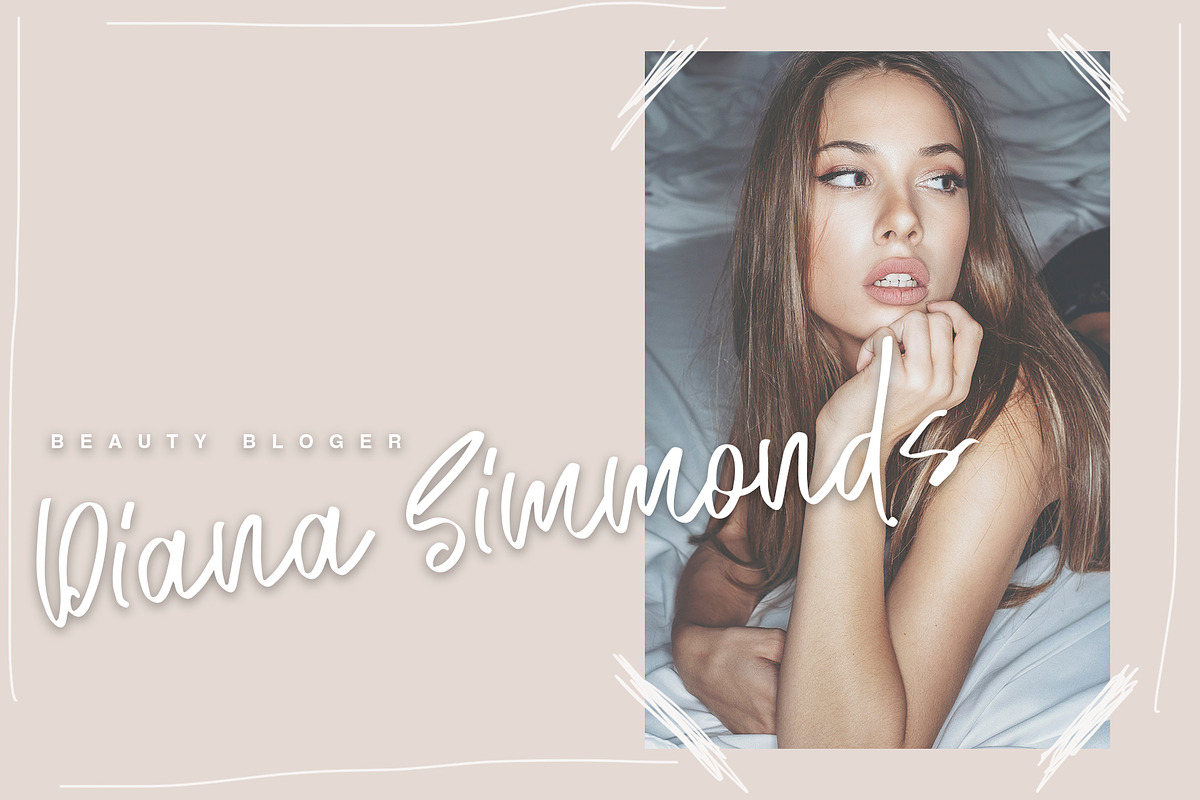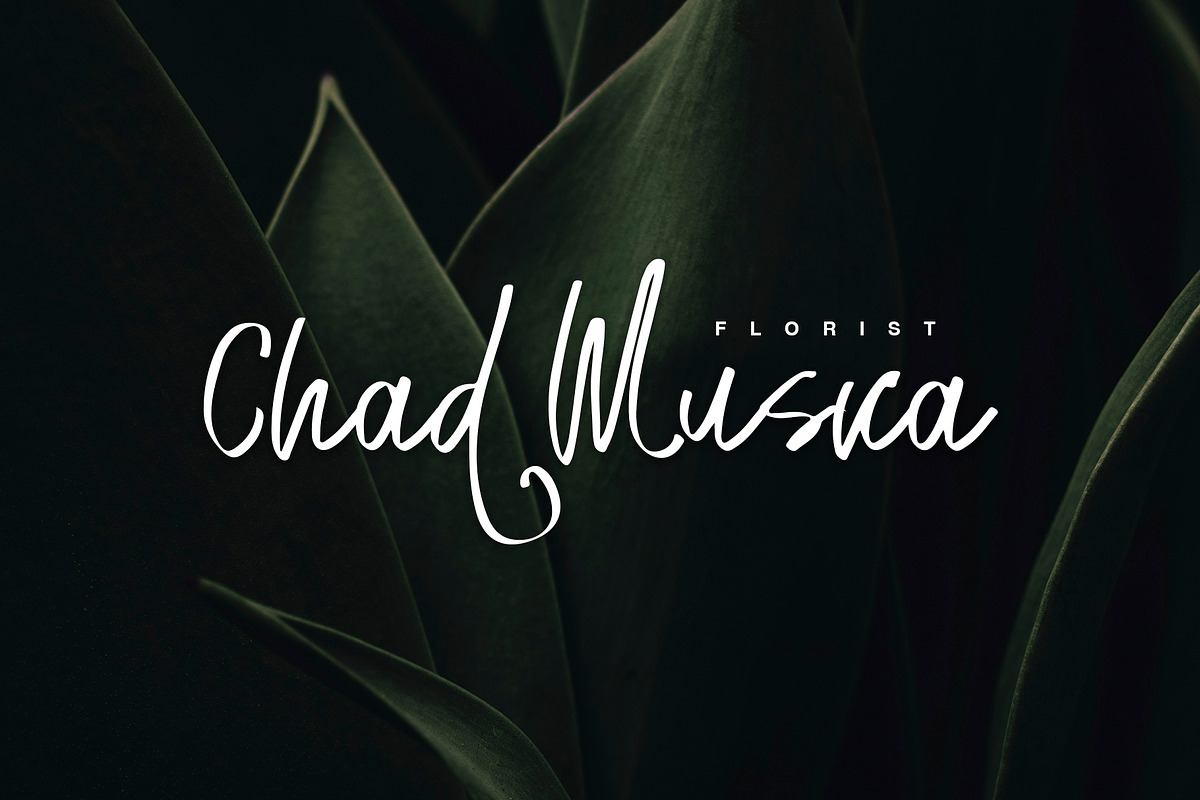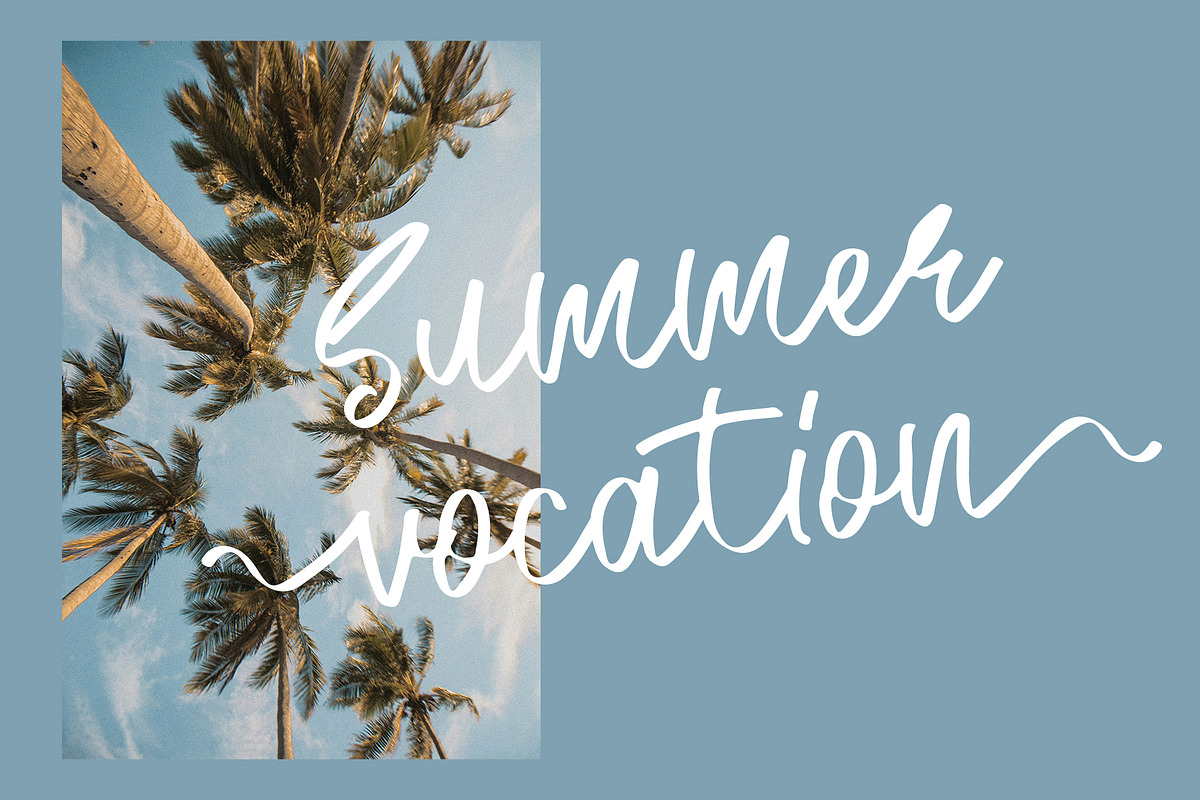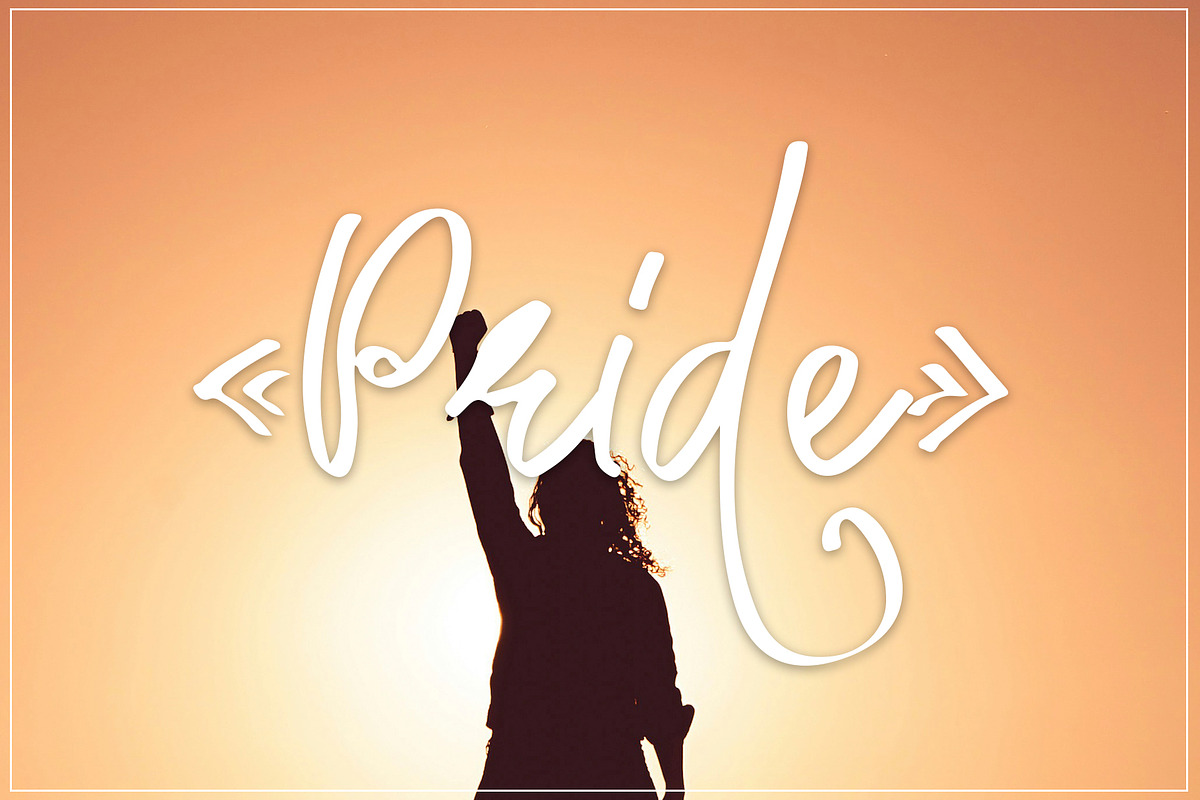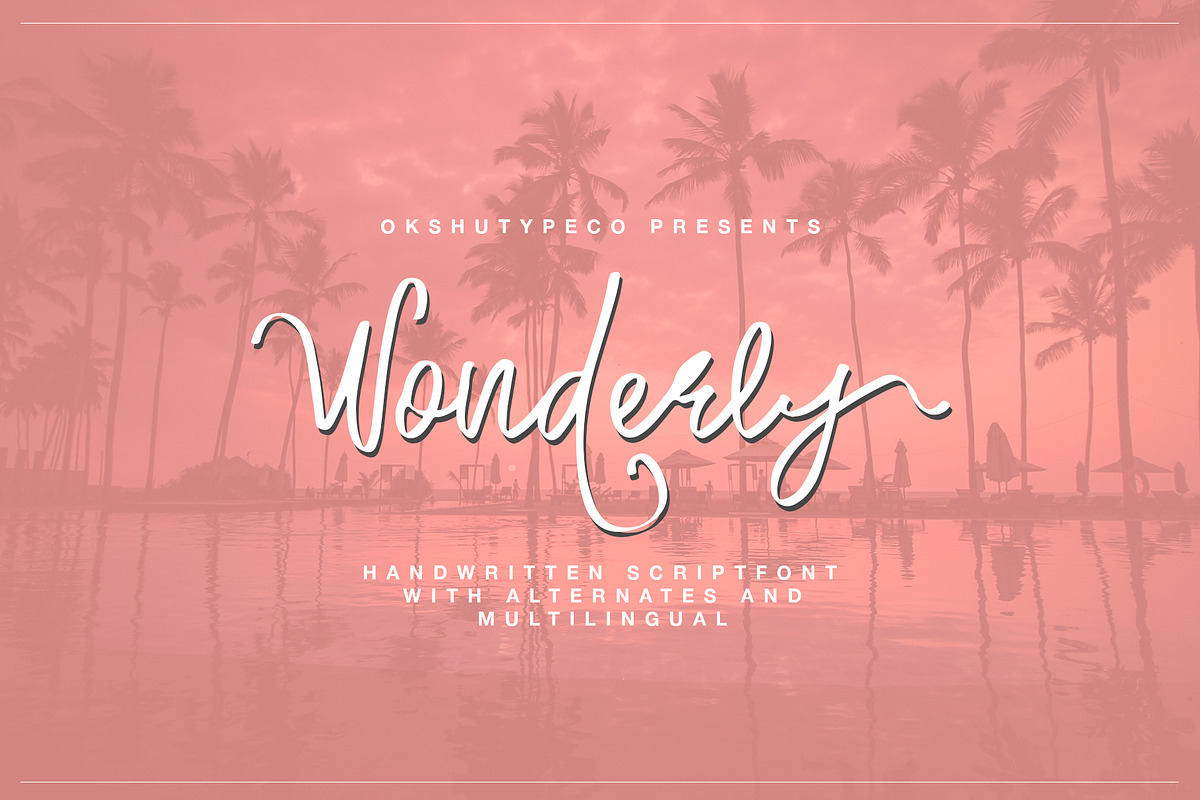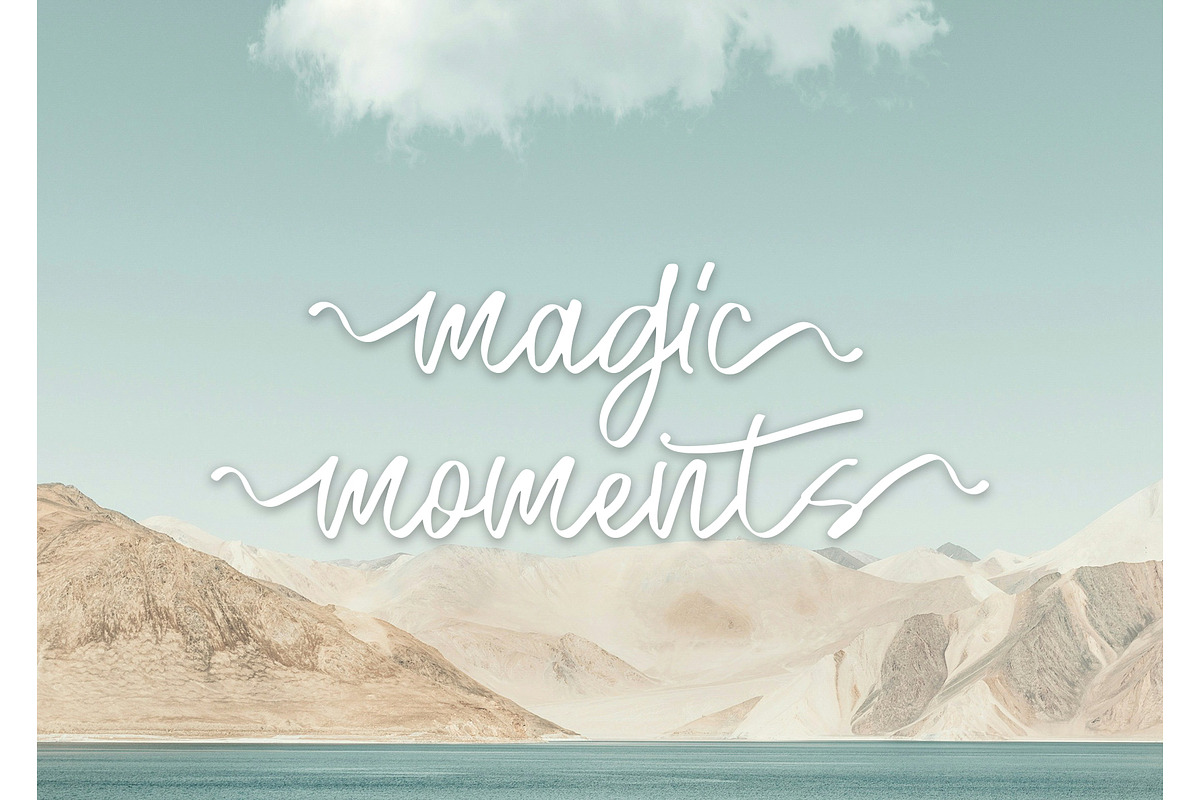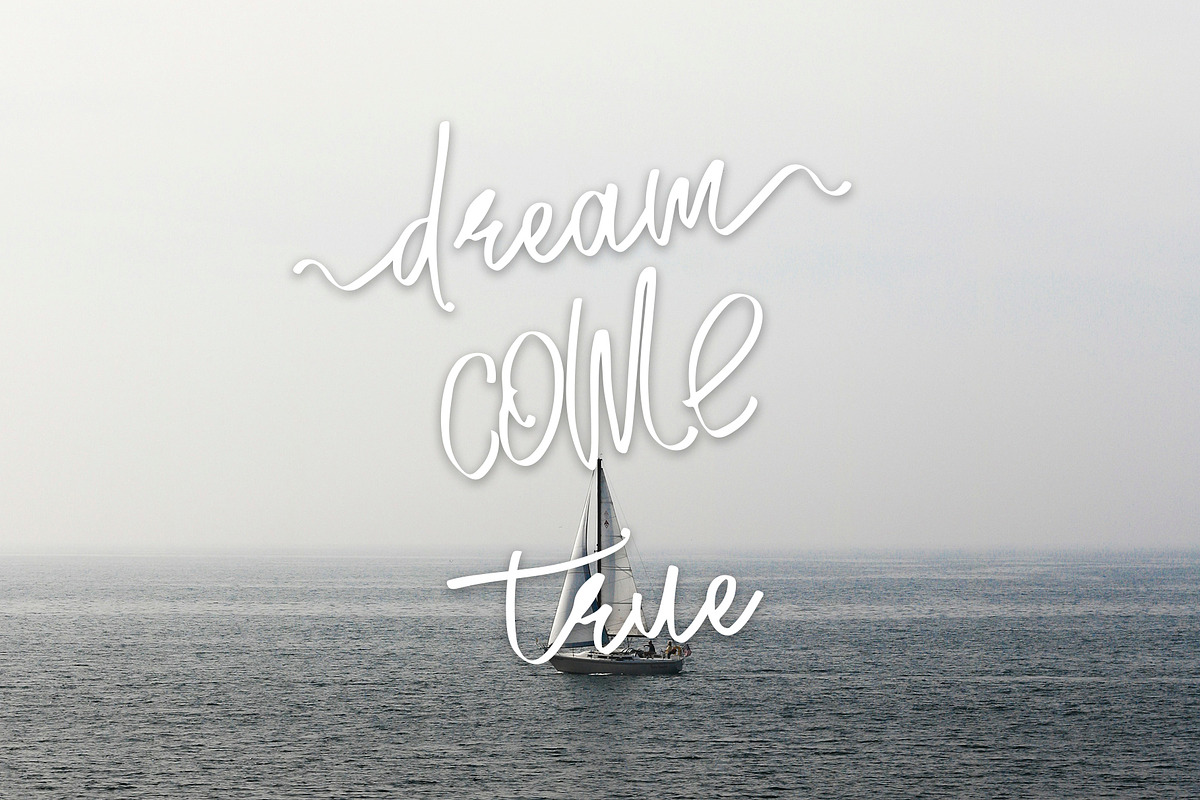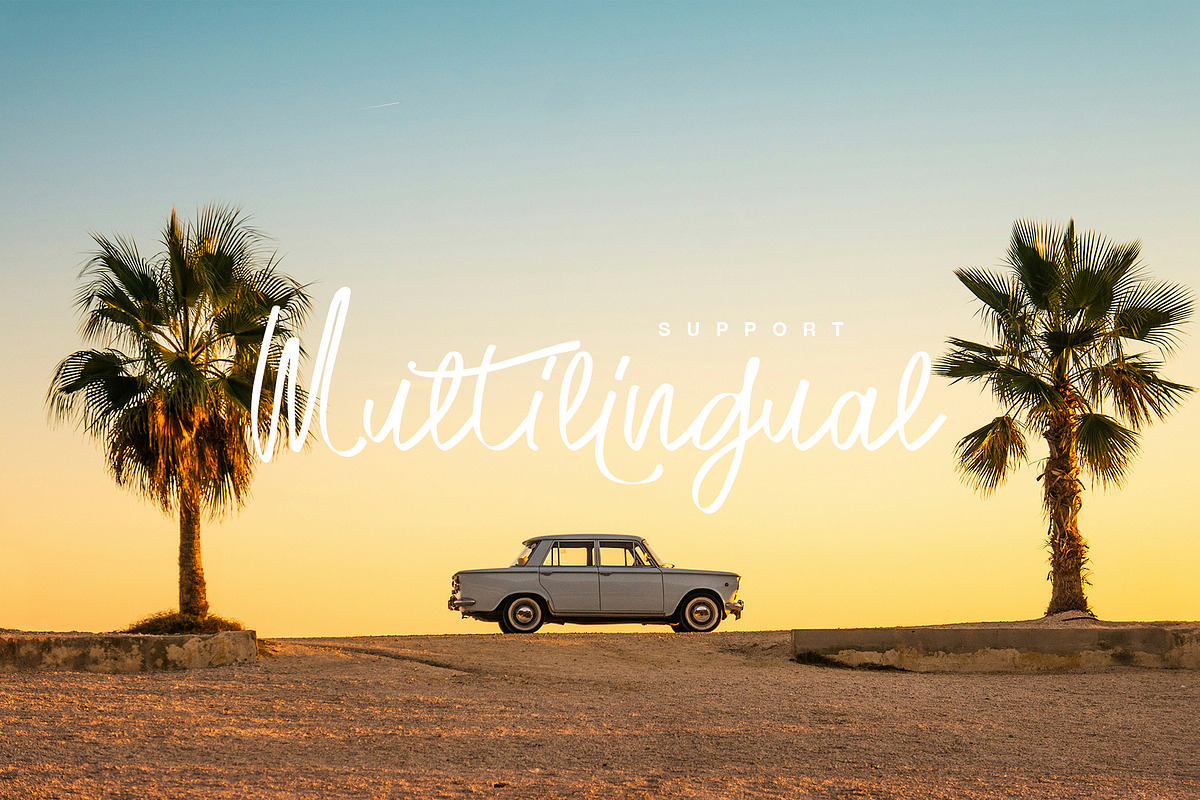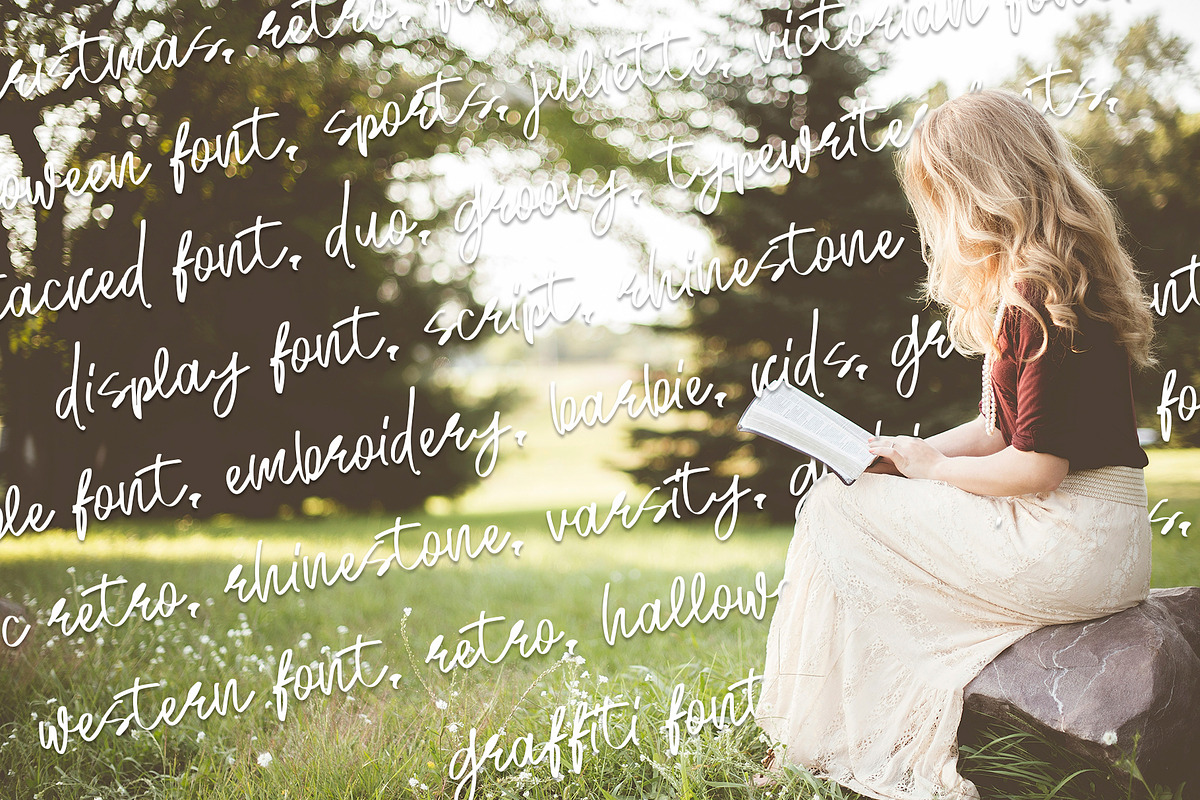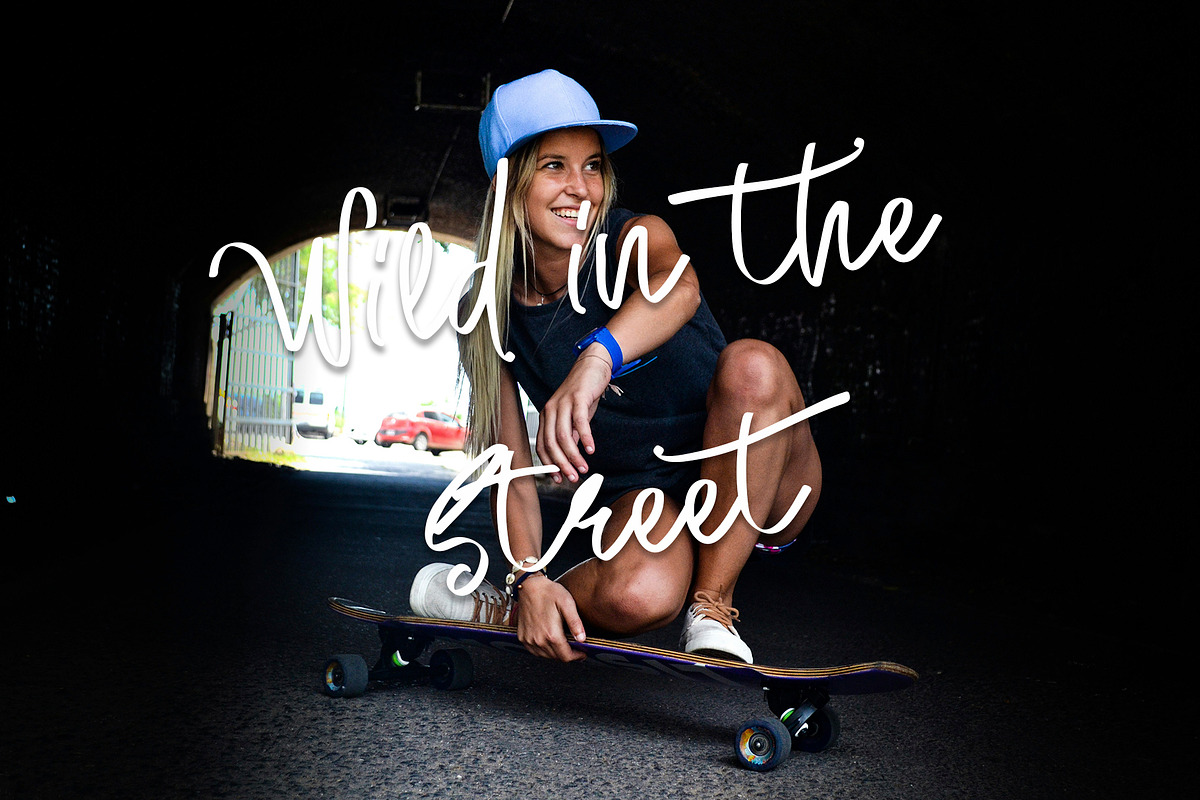
Wonderly
Wonderly - a new fresh handmade calligraphy font.
Very suitable for greeting cards, branding materials, business cards, quotes, posters, and more!This font are perfect for wedding postcard. Or you can create perfect and unique design of your logo, blog, stationery, marketing, magazines and more :)
- UpperCase & Lowercase
- Multilingualcharacters(AÀÁÂÃÄÅCÇDÐEÈÉÊËIÌÍÎÏNÑOØÒÓÔÕÖUÙÜÚÛWYÝŸŸ - ÆŒßÞàáâãäåæçèéêëìíîïðñòóôõöøùúûüýÿ)